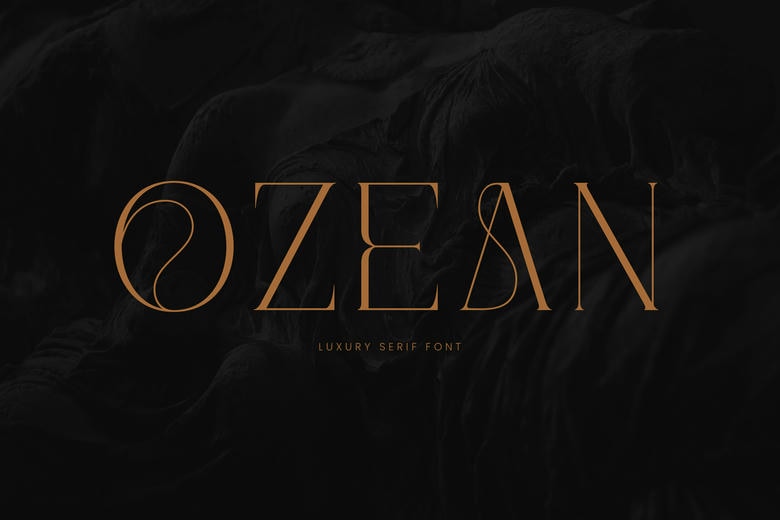
Ozean Font
Ozean is a stylish serif font, which takes the beauty of high-end and austerity into account. Combining its thick-thin strokes, long letterforms, and unusual artistic curves, particularly, in such characters as O and A, Ozean looks luxurious and exclusive indeed. Ideal as a premium brand name, fashion editorials, and high-end design package, Ozean is a combination of classical and contemporary style.
Using elegant shapes and sculptural features, it brings some feeling of grandeur to every letter, which makes it a visual statement. An instant fit to any luxury logo, magazine title, or even wedding invitation, Ozean will provide a strong and elegant feel, perfectly demanding attention and giving your design that touch of class.
Ozean Serif Font